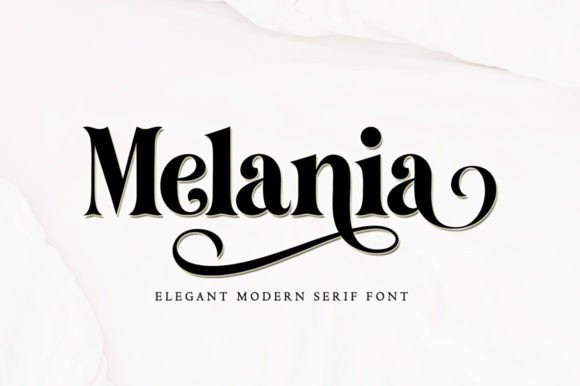
Introducing Melania Font - the epitome of elegance and style! Crafted by the talented team at Mastertype, this exquisite serif font is the go-to choice for anyone looking to elevate their business presence. With its timeless appeal, Melania Font is perfect for logotypes, branding, monograms, wedding invitations, blog headlines, and so much more.
Melania Font exudes luxury and sophistication, making it the ideal companion for any project that demands attention. Whether you're creating a stunning logo or designing a captivating magazine spread, this font will effortlessly elevate your work to new heights.
One of the most remarkable features of Melania Font is its versatility. It seamlessly blends modern and retro vintage designs, making it suitable for a wide range of projects. From crafting eye-catching stickers to designing exquisite wedding invitations, this font can do it all. Its charm knows no bounds!
As you browse through the previews of Melania Font, prepare to be inspired. Let your creativity soar as you envision the endless possibilities this font brings to your projects. The captivating allure of Melania Font will leave a lasting impression on your audience, making your brand unforgettable.
Branding is the key to success in today's competitive market, and Melania Font is the secret ingredient you need. Its elegant curves and timeless appeal will captivate your target audience, leaving them yearning for more. With this font, your brand will exude professionalism and sophistication, setting you apart from the rest.
Melania Font is not just a font; it's a statement. It speaks volumes about your commitment to excellence and attention to detail. As you embark on your creative journey, let Melania Font be your trusted companion. Your designs will shine brighter, your message will resonate deeper, and your business will thrive.
Unlock the power of Melania Font today and witness the transformation it brings to your projects. Embrace the beauty of this font and let it inspire you to create extraordinary designs. Your audience awaits, and Melania Font is here to help you make a lasting impression.